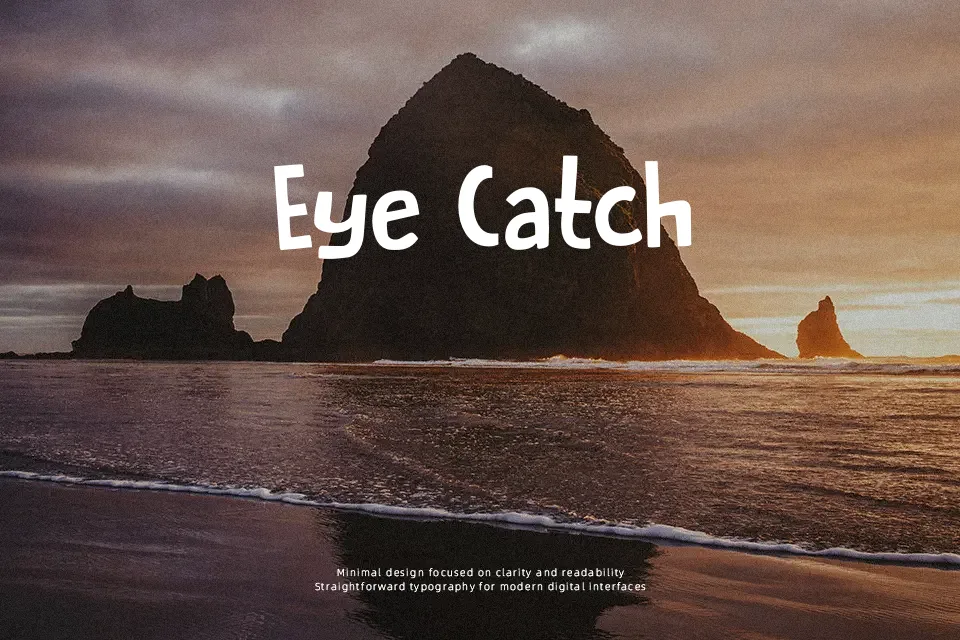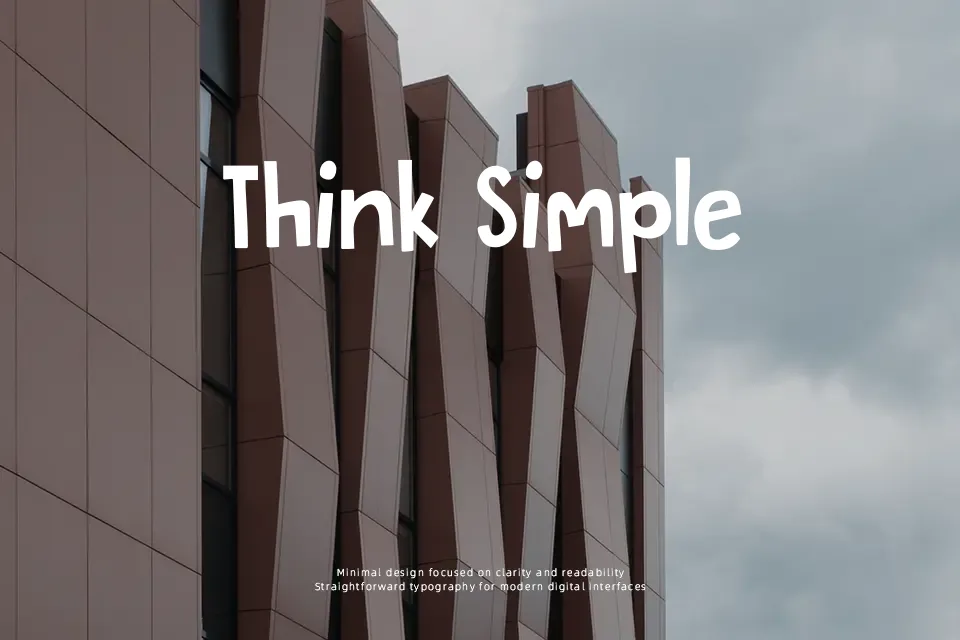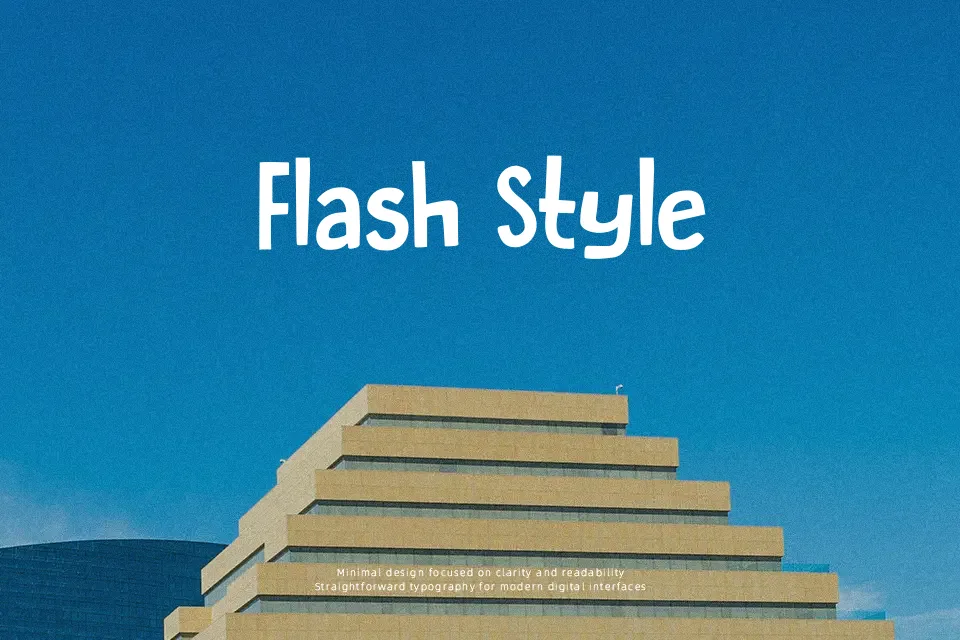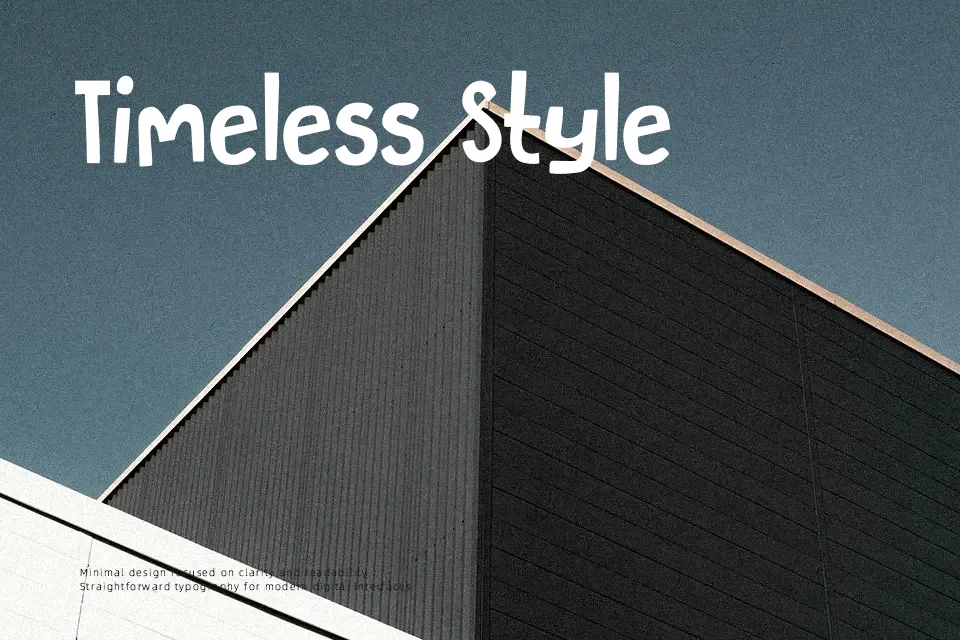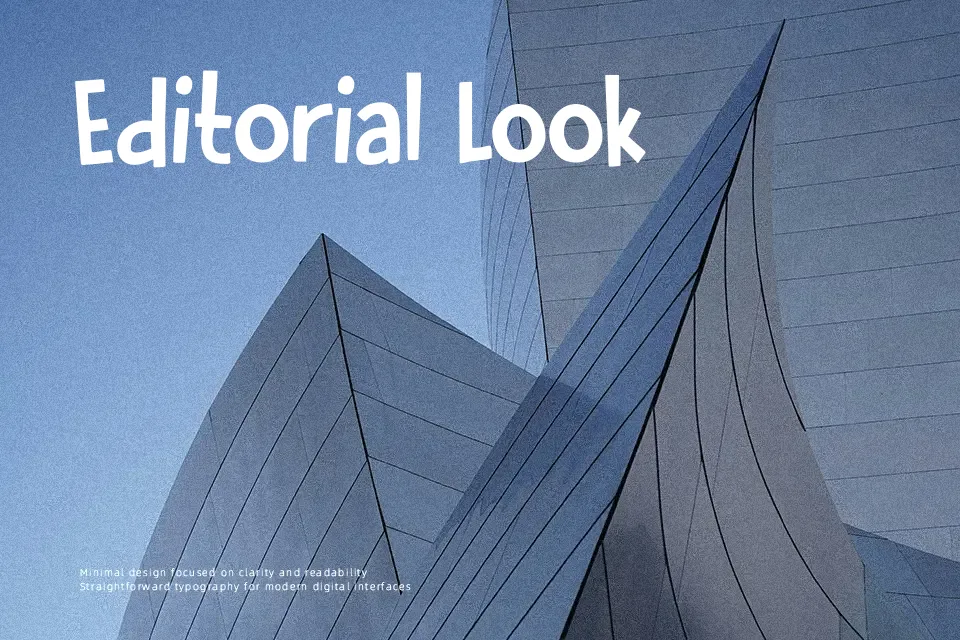
DK Butterfly Ball Font
DK Butterfly Ball has a hand-drawn cartoon feel, with thick strokes, irregular curves, and slightly uneven spacing that keeps the line lively rather than tidy. The letterforms look soft and bouncy, giving headlines a casual, childlike tone without becoming messy. It works best when you want something friendly and noticeable, such as birthday invites, classroom materials, snack packaging, or playful social posts. The style has enough personality for short words and titles, but it starts to feel cramped and distracting in body copy or more formal layouts. If you need clean consistency or a refined brand voice, this one can feel too playful.
kids posters,party invitations,playful packaging,short social headlines
body text,formal branding,dense editorial layouts,corporate websites
Perfect for invitation, kids, and packaging, with a creative and cartoon style.